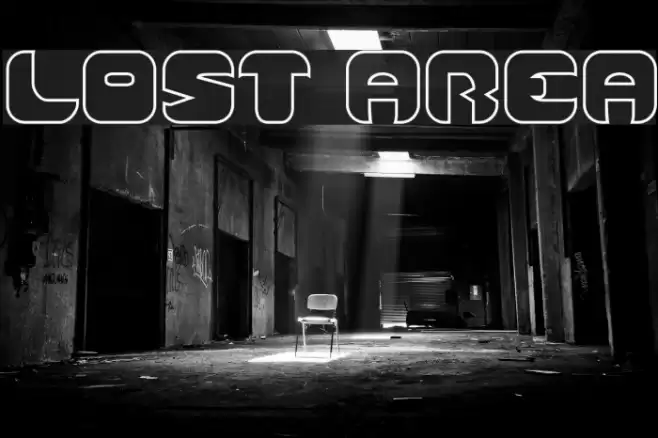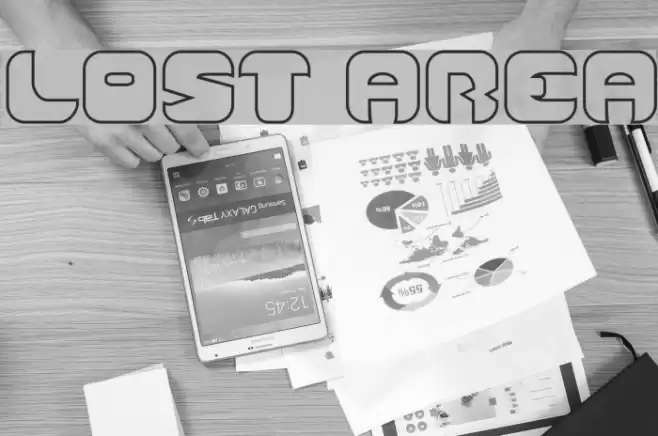
Lost Area Font
Lost Area Description
This font features a bold, geometric design with a futuristic and playful aesthetic. The characters are outlined, creating a hollow effect that adds depth and dimension. Each letter is constructed with a consistent thickness, emphasizing a uniform and structured appearance. The font's unique style is characterized by its rounded corners and blocky shapes, which give it a modern and tech-inspired look. The absence of lowercase letters and numbers suggests a focus on uppercase display, making it ideal for attention-grabbing headlines or logos. Its distinct style is both eye-catching and versatile, suitable for a variety of creative projects.
A bold, geometric, and futuristic outlined font with a playful aesthetic from Uncategorized fonts.